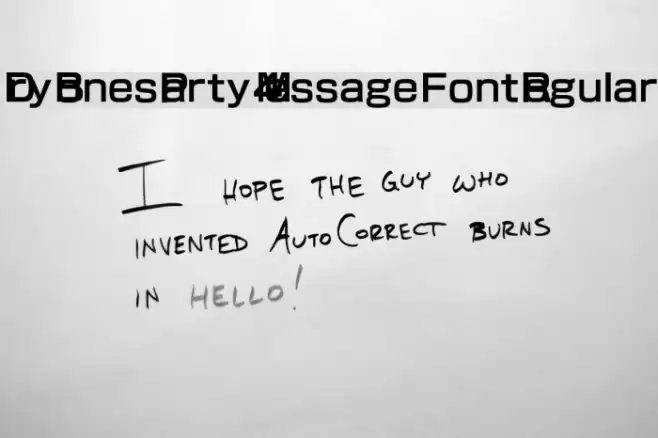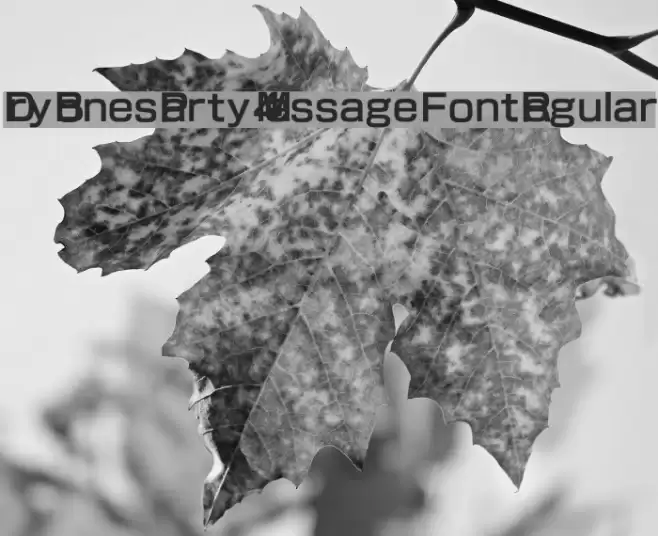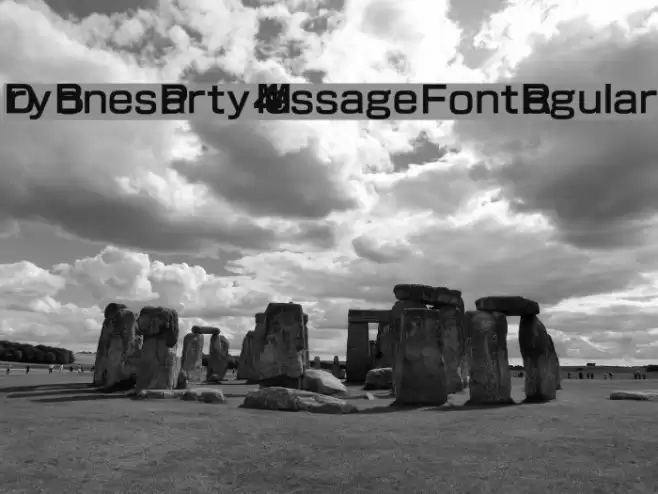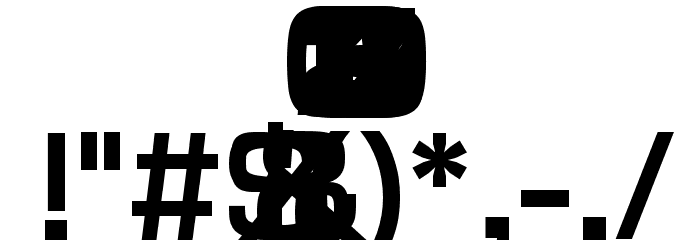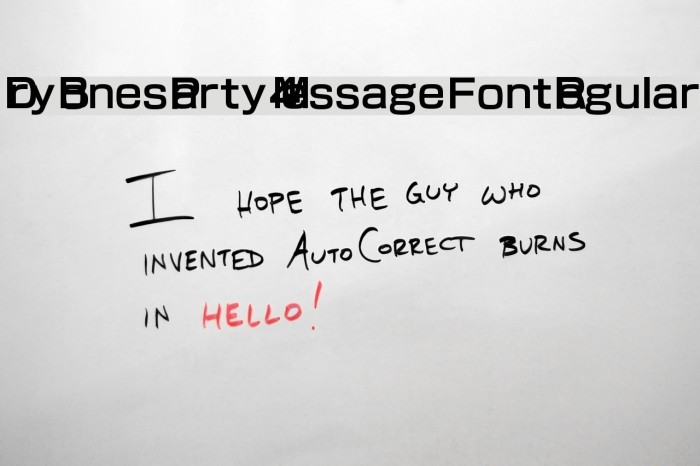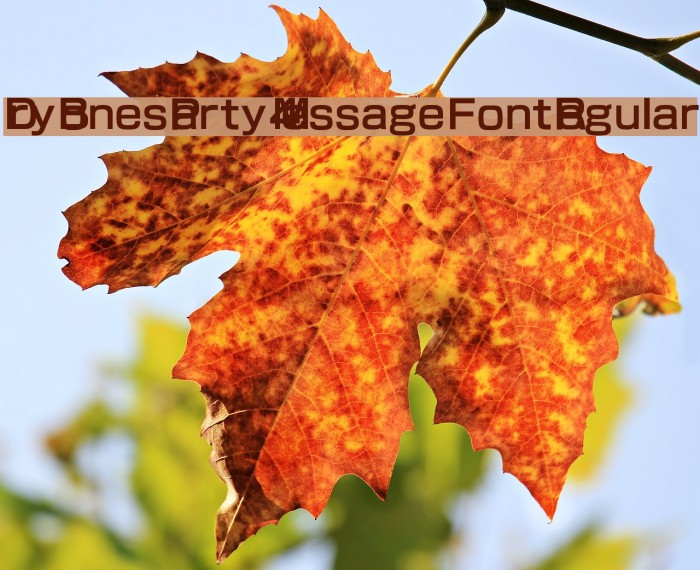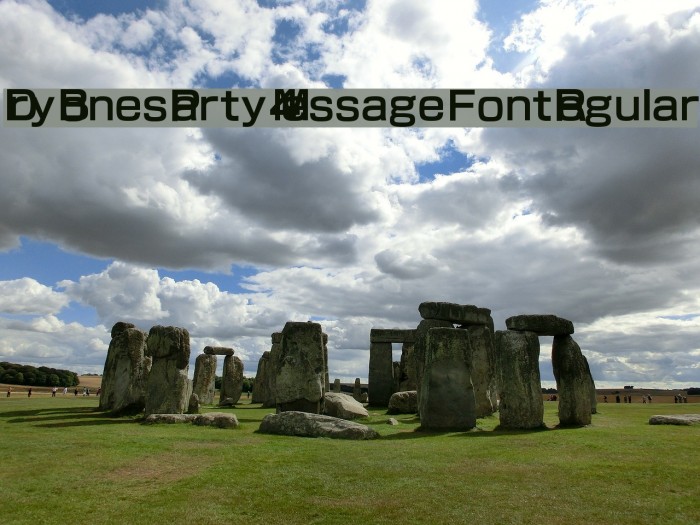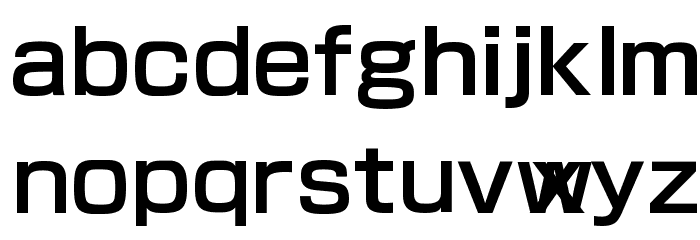
Dry Bones Party 4 Message Font Regular Font
Dry Bones Party 4 Message Font Regular Description
This font features a bold and modern design with a strong geometric structure. The uppercase letters are characterized by their thick strokes and angular shapes, creating a sense of strength and stability. The lowercase letters maintain a consistent weight, offering a harmonious balance between the characters. The numerals are clear and straightforward, ensuring legibility. Special characters are designed with the same boldness, making them stand out effectively. The overall style is contemporary and impactful, suitable for making a statement.
A bold, modern font with geometric and angular characteristics from Uncategorized fonts.
- Proposed Projects: Ideal for branding, headlines, posters, and any project requiring a strong visual impact.